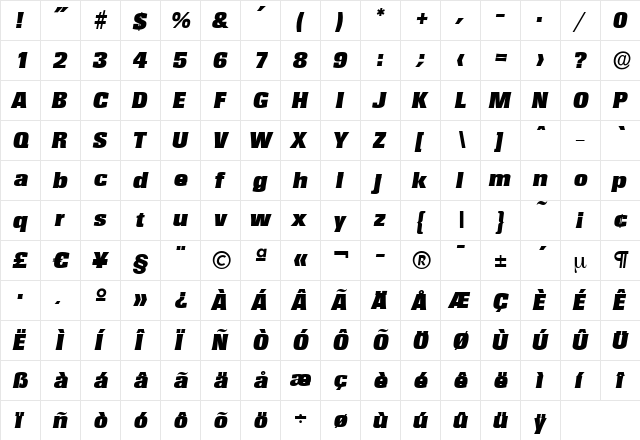
WalterBecker-Black Italic
Design Context for WalterBecker-Black Typeface
WalterBecker-Black is a composed and adaptable typeface that performs quietly and consistently across a wide range of design contexts. The dynamic lean of this cut emphasises speed and emphasis in any layout.
Pro Tip: Use WalterBecker-Black for emphasis, pull quotes, and subheadings where its slanted energy can add rhythm to the layout.